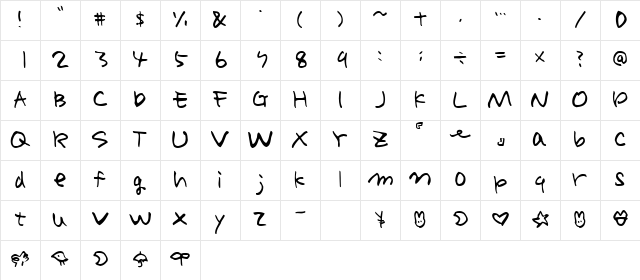
Holiday Alphabe " Free Font
Holiday Alphabe "
Style: Alphabe "
Holiday Family
Complete Holiday Alphabe " glyph index. Displaying only characters natively supported by Holiday Alphabe " font.
Design Context for Holiday
Holiday is a composed and adaptable typeface that performs quietly and consistently across a wide range of design contexts.